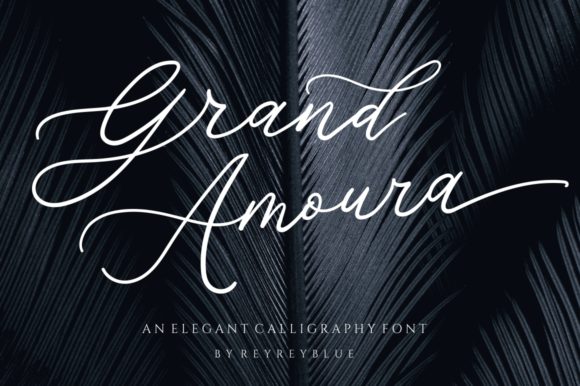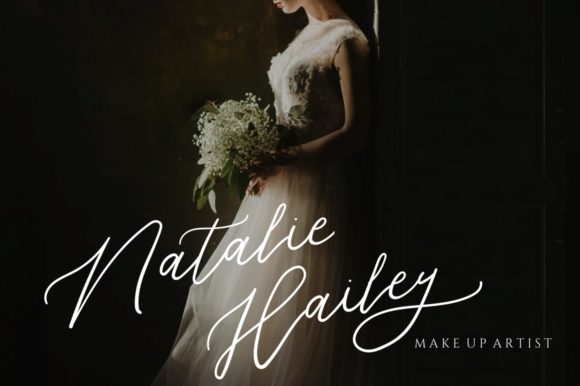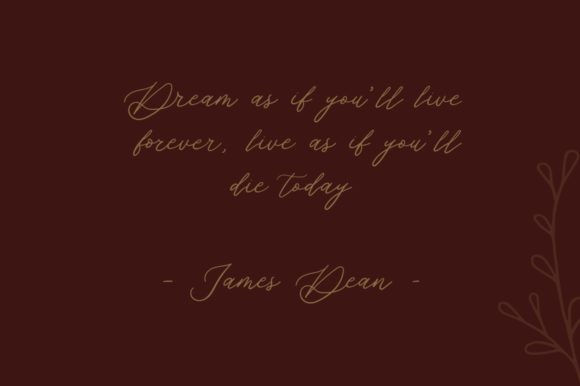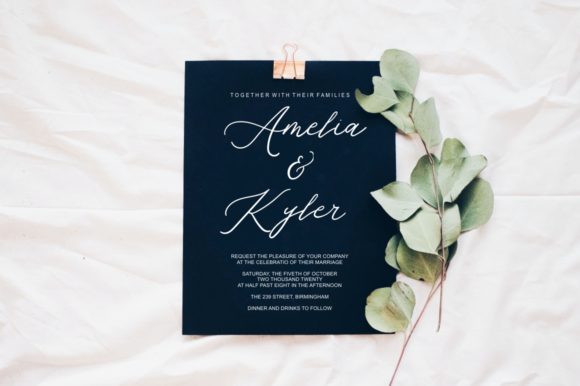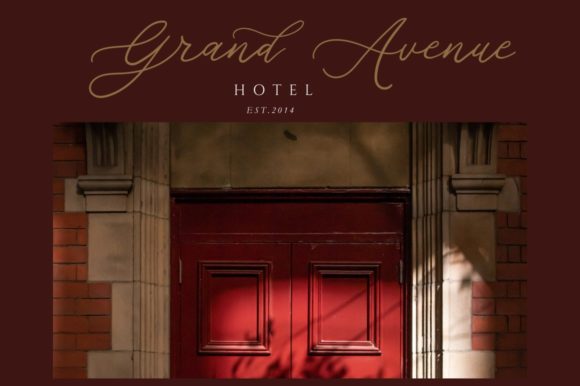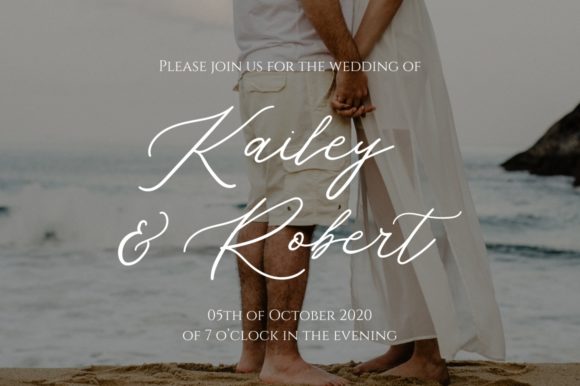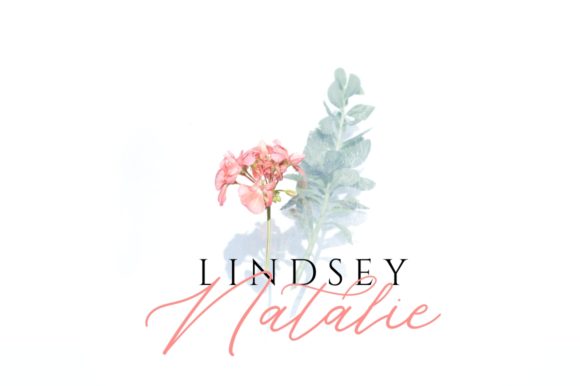
About Grand Amoura Font
Grand Amoura is a romantic and smooth handwritten font. It looks stunning on wedding invitations, thank you cards, quotes, greeting cards, logos, business cards and every other design which needs a handwritten touch.